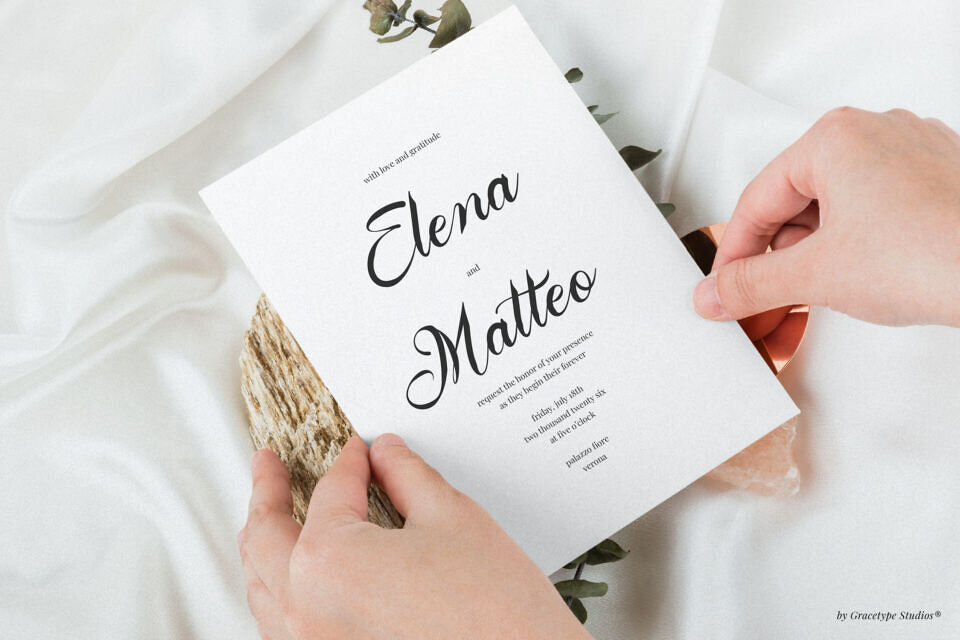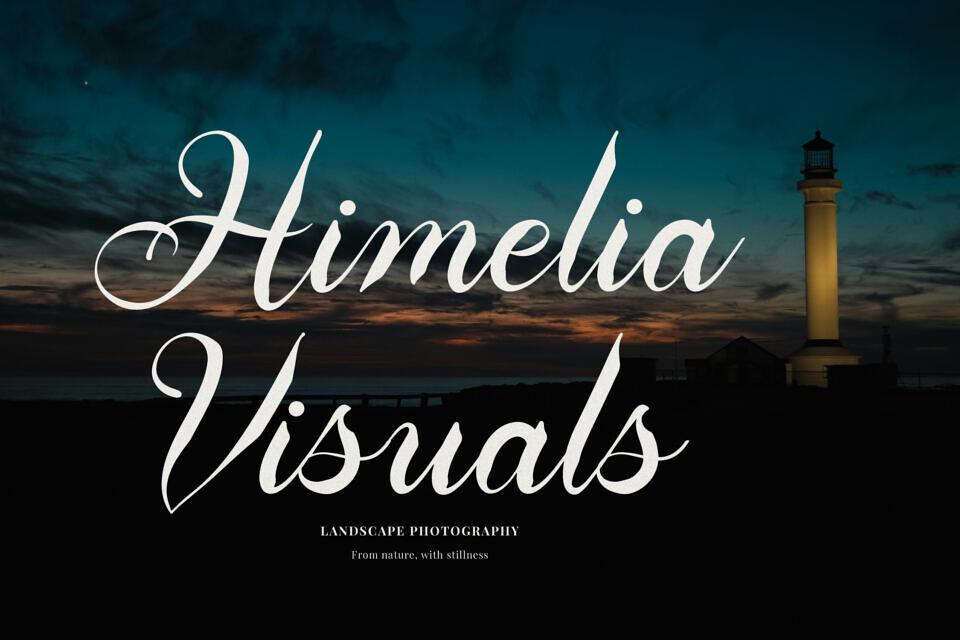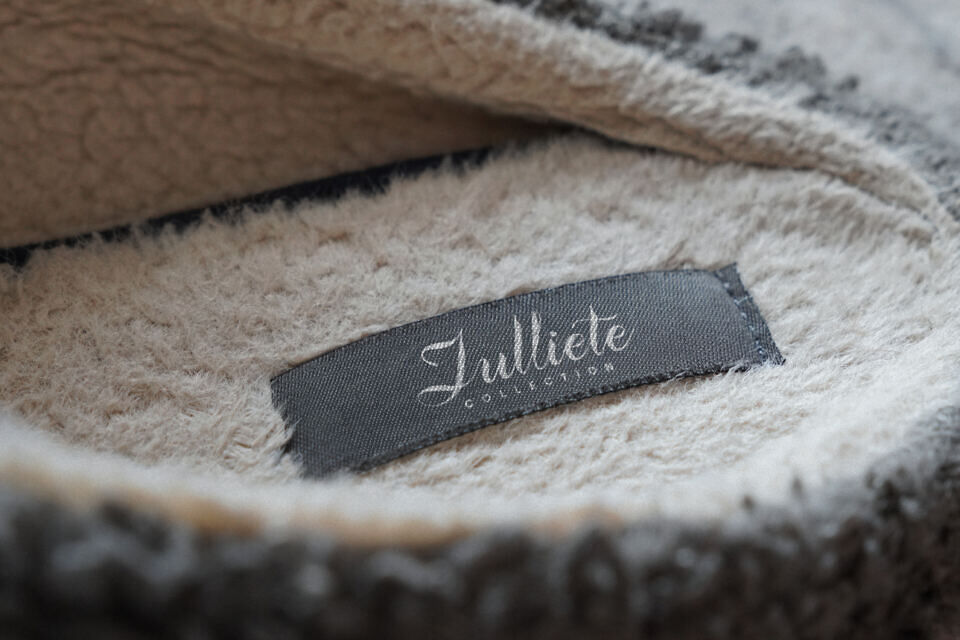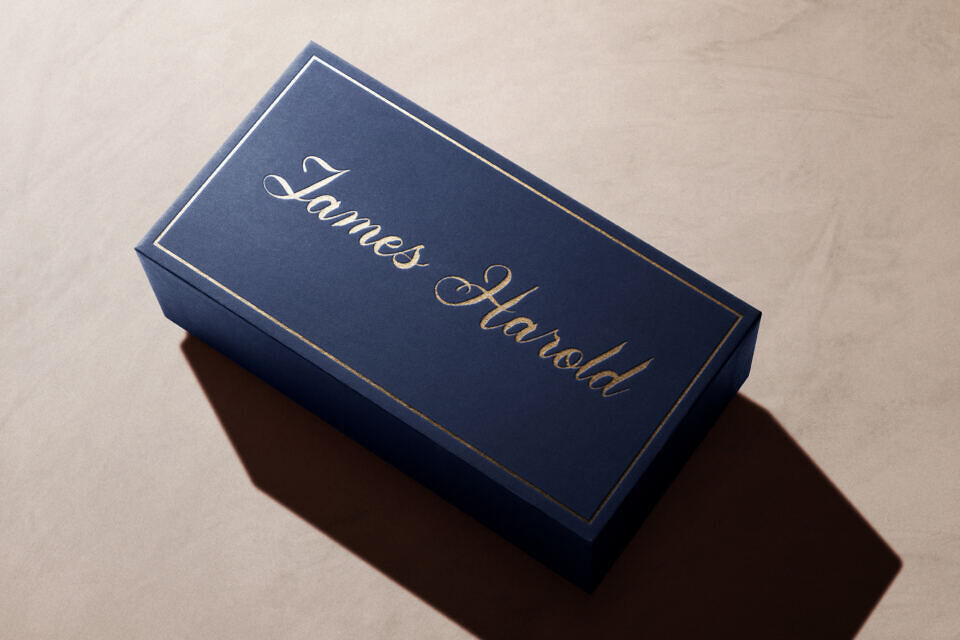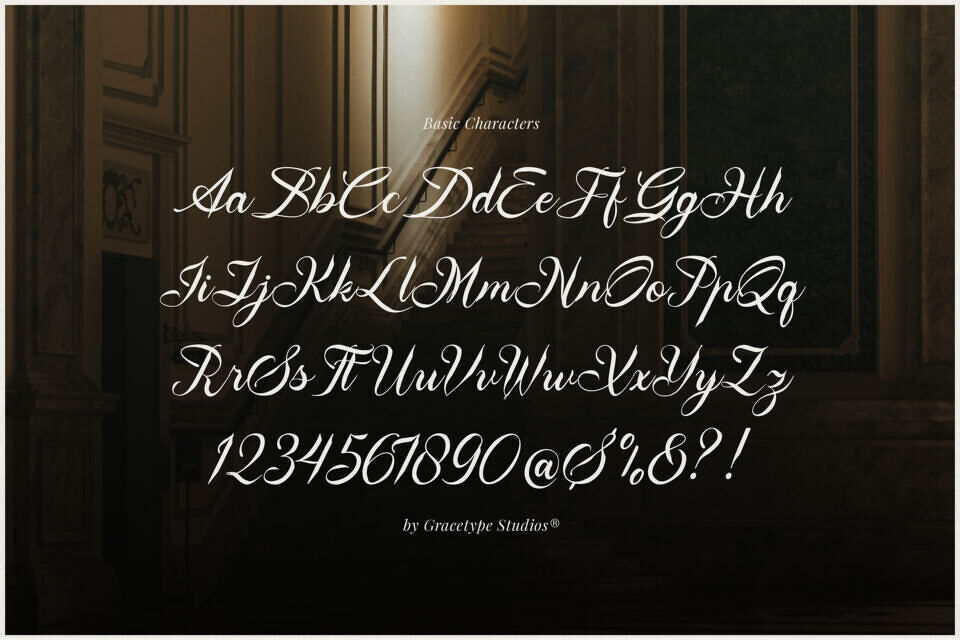
Aipshar Font
Discover the pinnacle of sophisticated penmanship with Aipshar, an elegant script font. This typeface features fluid, high-contrast letterforms characterized by dramatic, sweeping ascenders and sharp, refined terminals that evoke the grace of a master calligrapher.
Its rhythmic baseline and intricate ligatures create a seamless, hand-lettered aesthetic that feels both classical and contemporary. With over 280+ glyphs and full multilingual support, Aipshar is an extraordinary choice for luxury branding, bespoke wedding stationery, high-end editorial headers, and chic fashion logos.